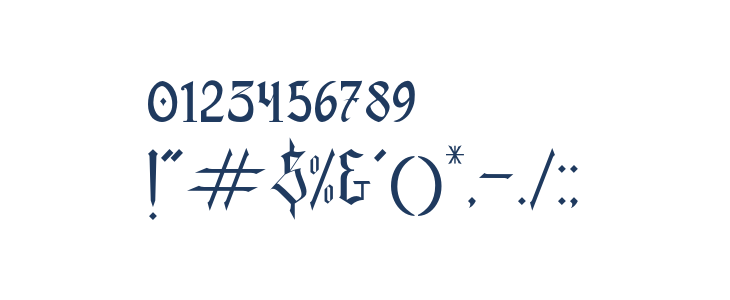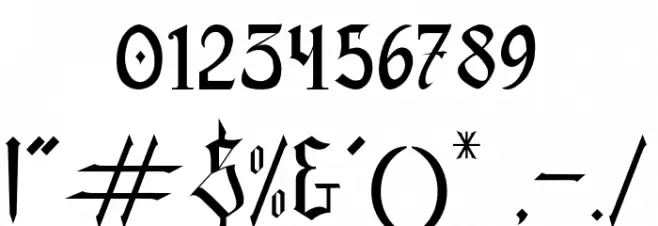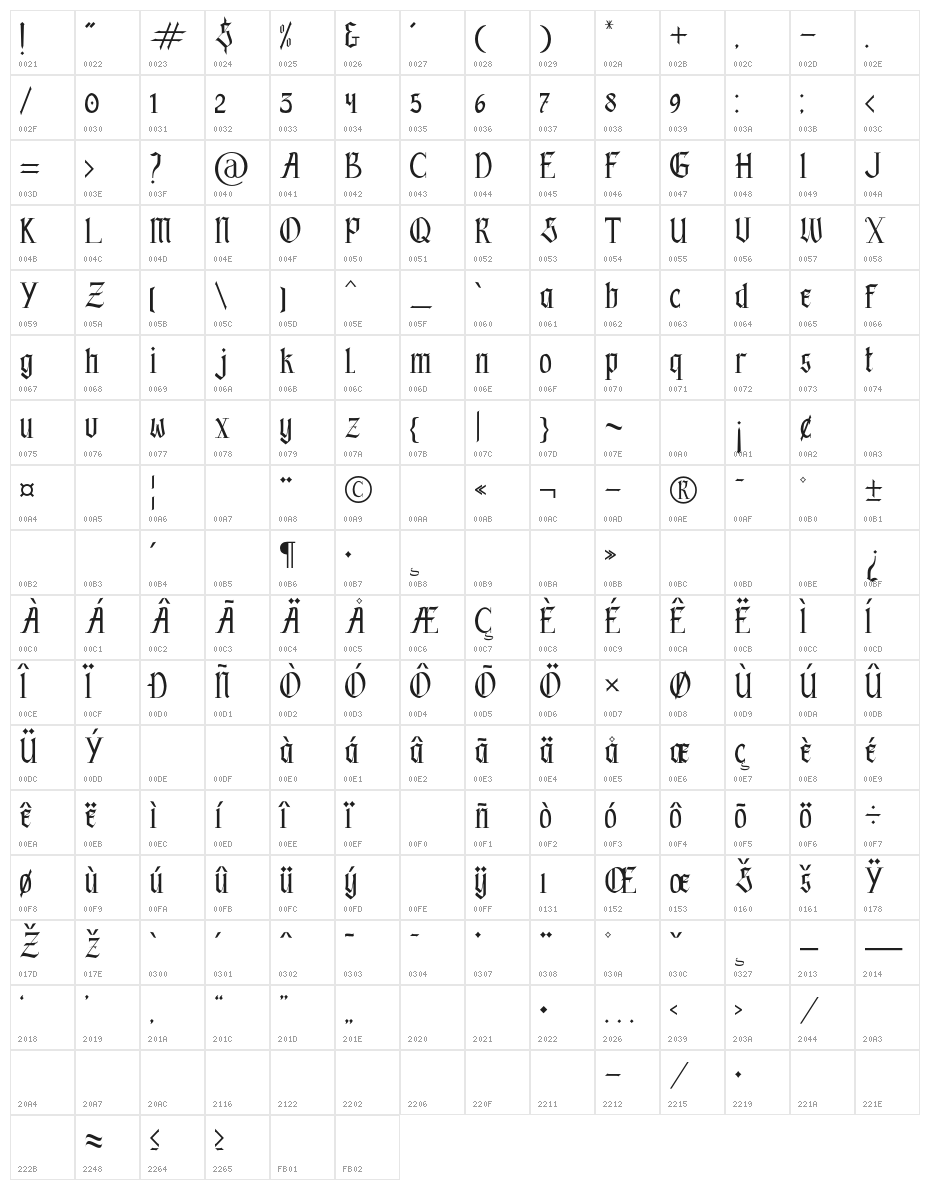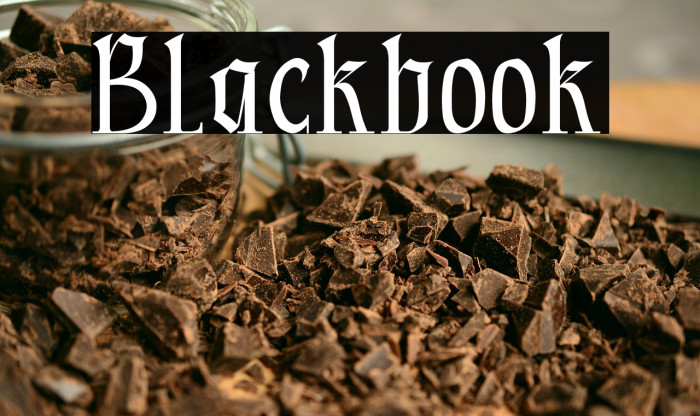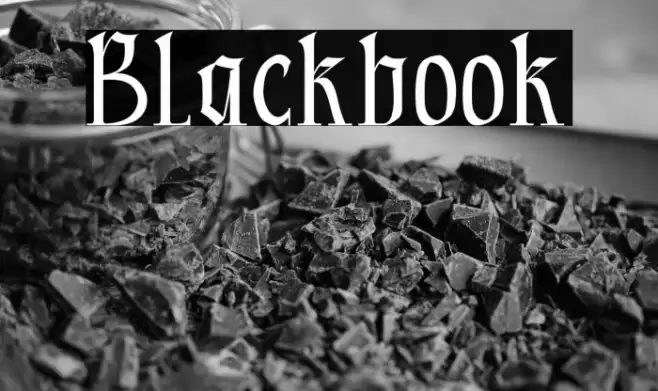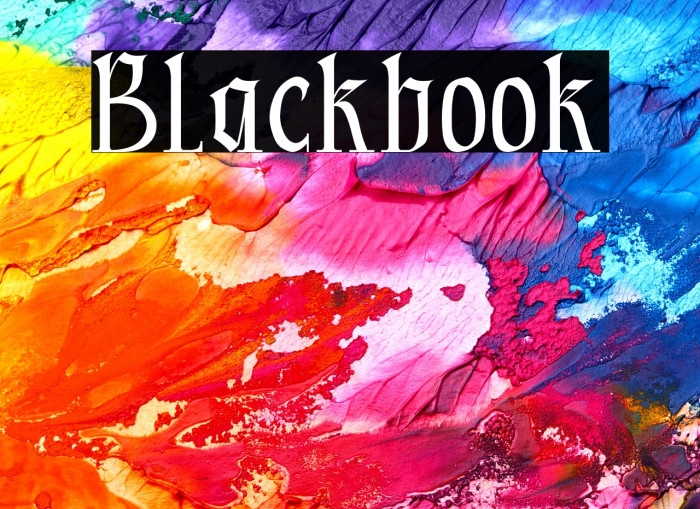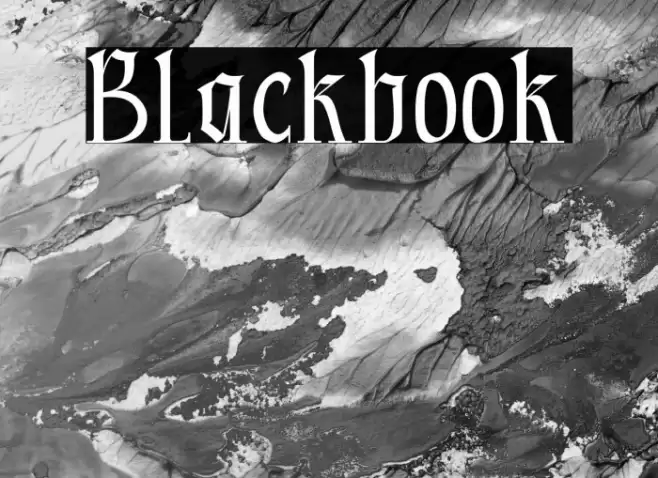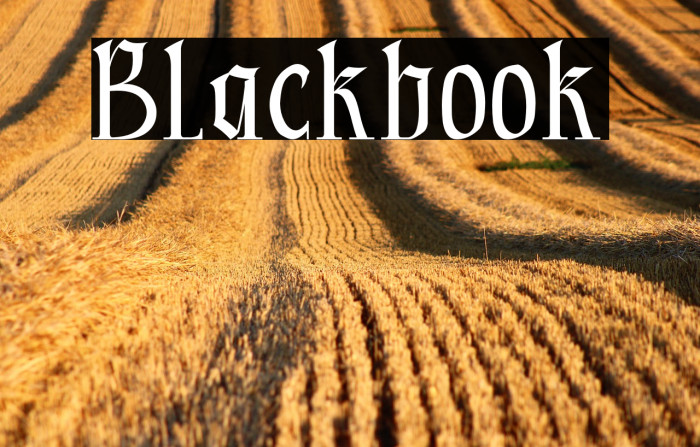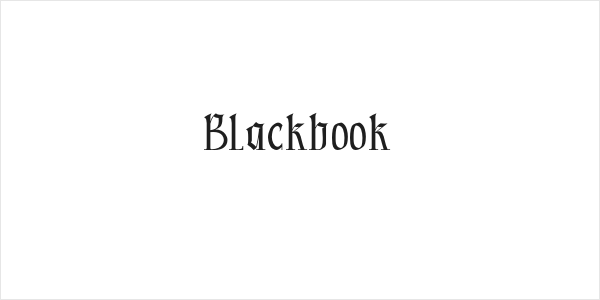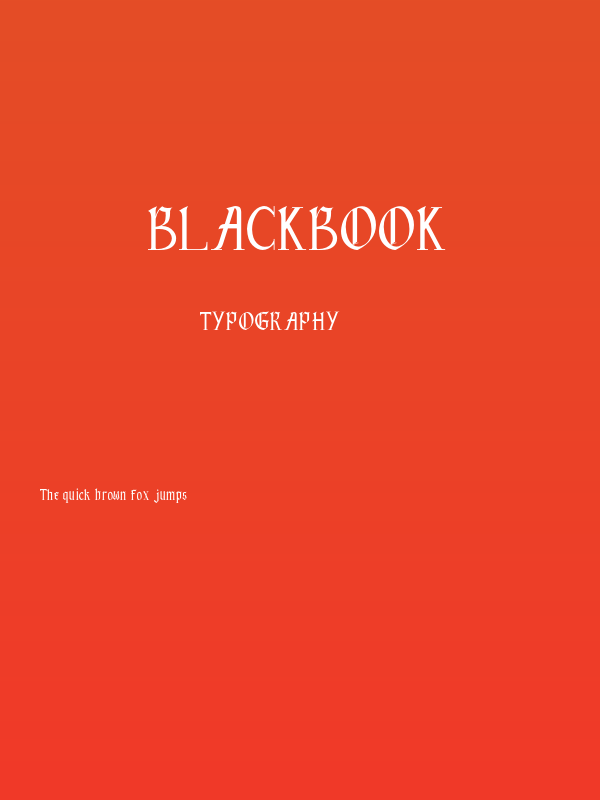
Blackbook Font
Blackbook Description
This font exhibits a strong, traditional Blackletter style with sharp, angular lines and a distinct medieval aesthetic. The uppercase letters are bold and commanding, featuring intricate serifs and a sense of historical gravitas. The lowercase letters maintain the same stylistic elements, offering a cohesive look across the typeface. Numbers and special characters are designed with the same attention to detail, ensuring consistency throughout. This font is ideal for projects that require a dramatic and historical touch, such as event posters, book covers, or branding that seeks to convey a sense of tradition and authority.
| Proposed Projects | Ideal for historical-themed designs, event posters, book covers, and branding that requires a dramatic touch. |